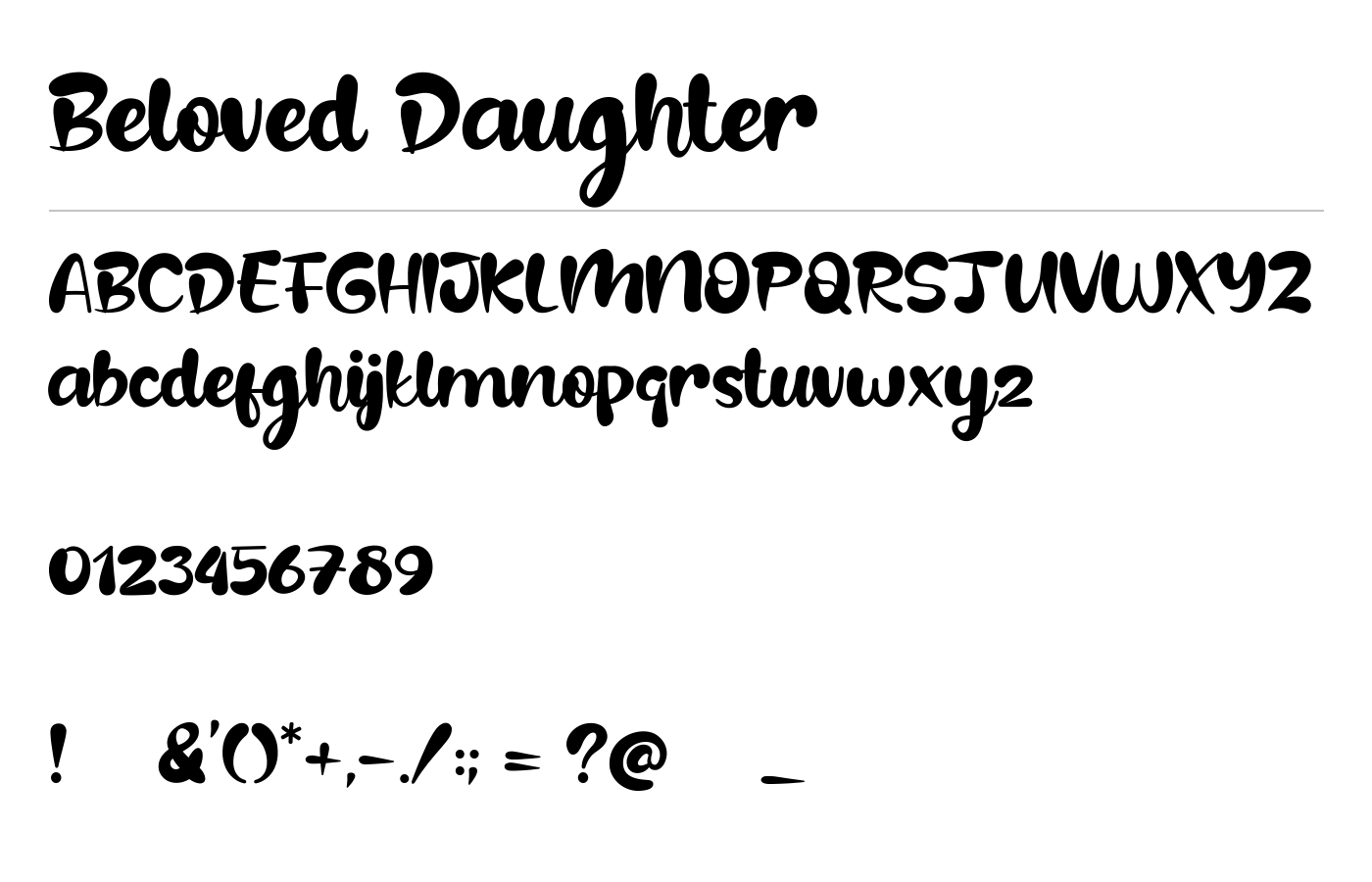
Beloved Daughter is a bold, playful script font with a friendly and casual vibe, featuring smooth, rounded strokes and a lively, hand-drawn feel. Its strong presence and balanced letterforms make it ideal for branding, invitations, and creative projects that seek warmth and personality. This font works well in headlines and logos where charm and approachability are key.
Beloved Daughter Font
About Beloved Daughter Font